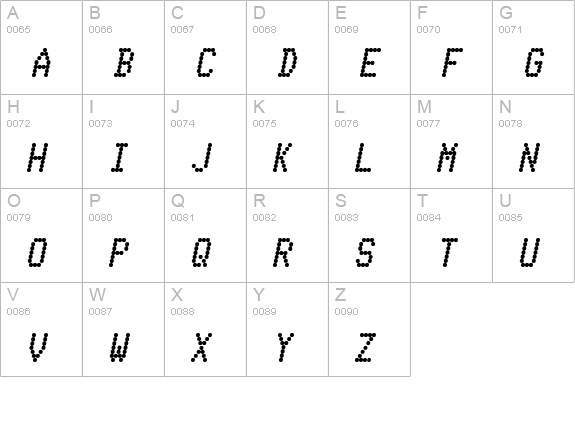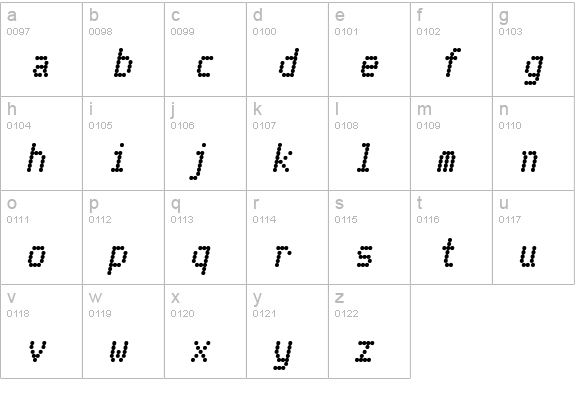
Telidon Hv Italic is a distinctive, italic variant in the Telidon typeface family \xE2\x80\x94 well suited to design and typography projects.
Telidon Hv Italic is a sleek and modern font that exudes sophistication and style. Its slanted design adds a touch of elegance to any project, making it perfect for headings, titles, and other eye-catching elements. The italicized letters flow smoothly, creating a sense of movement and grace on the page. What sets Telidon Hv Italic apart is that it is not only a visually stunning font, but it is also completely free to download. You can easily access this font for all your design needs at FontsMarket.com, where you can explore a wide range of typefaces to elevate your creative projects. Don't miss out on the opportunity to enhance your designs with the effortlessly chic Telidon Hv Italic font – download it now and unleash your creativity!